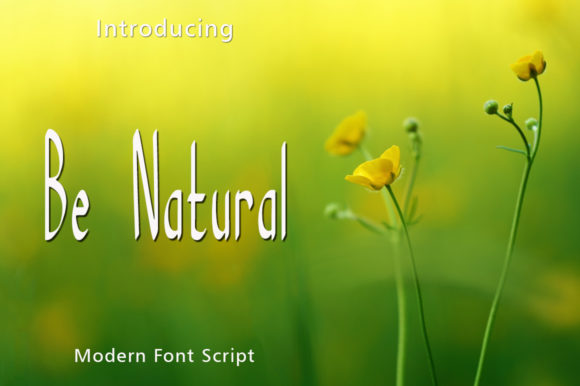
Unleash the beauty of handwritten elegance with Be Natural, an enchanting script font that captures the essence of human touch within the digital realm. Crafted by rangkaiaksara, Be Natural is more than just a font; it's an experience that brings your designs to life with graceful strokes and a touch of playfulness.
For those seeking a font that transcends the ordinary, Be Natural emerges as a beacon of inspiration. Its minimalistic approach embraces the art of simplicity, allowing your words to breathe and your message to shine. Whether it's a charming logo, an eye-catching social media post, or an elegant wedding invitation, Be Natural effortlessly elevates your creations to new heights.
Immerse yourself in the creative possibilities that Be Natural presents. Its versatility shines across a vast spectrum of projects, from personal blogs to professional presentations. Its delicate curves and natural flow add a touch of sophistication to any design, transforming ordinary words into captivating works of art.
Visualize the impact of Be Natural on your digital presence. Its effortless charm captivates audiences, drawing them into your content. The font's intrinsic allure makes your messages irresistible, ensuring they leave a lasting impression.
With Be Natural as your creative companion, you'll discover a world of possibilities where inspiration flourishes. Unleash your imagination and let the font's inherent beauty elevate your designs, leaving a trail of elegance in its wake.